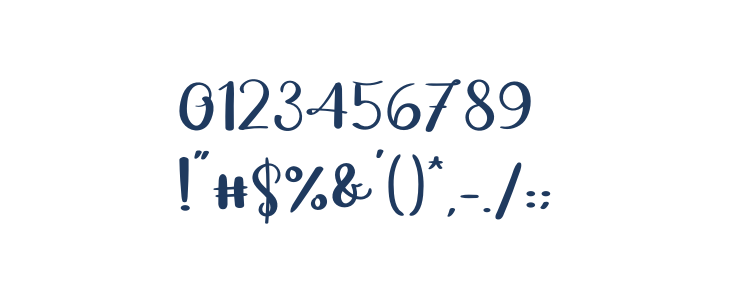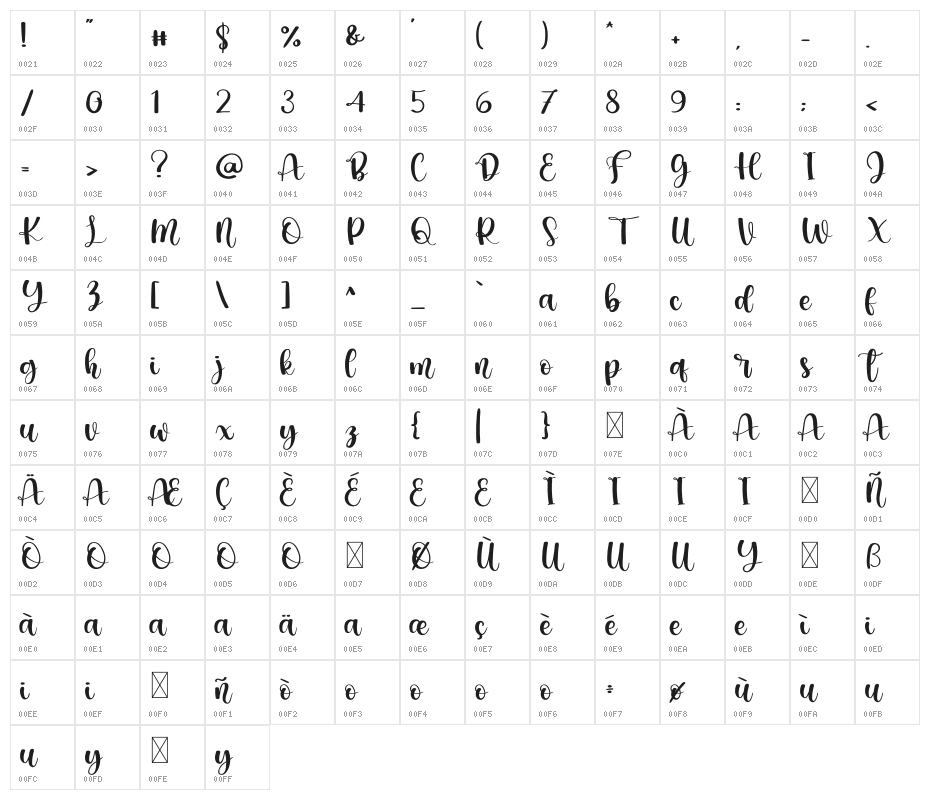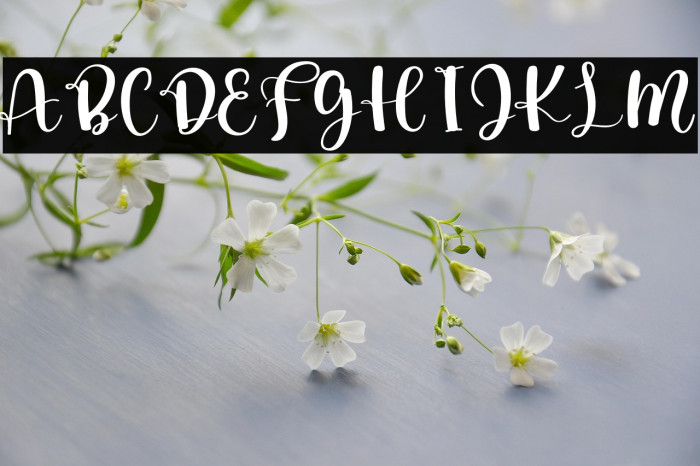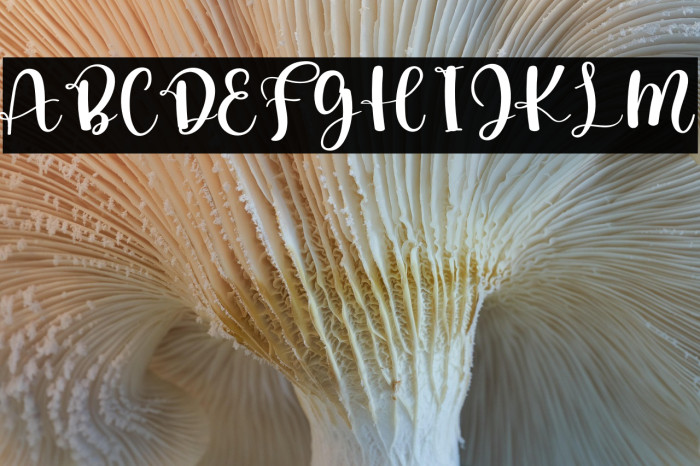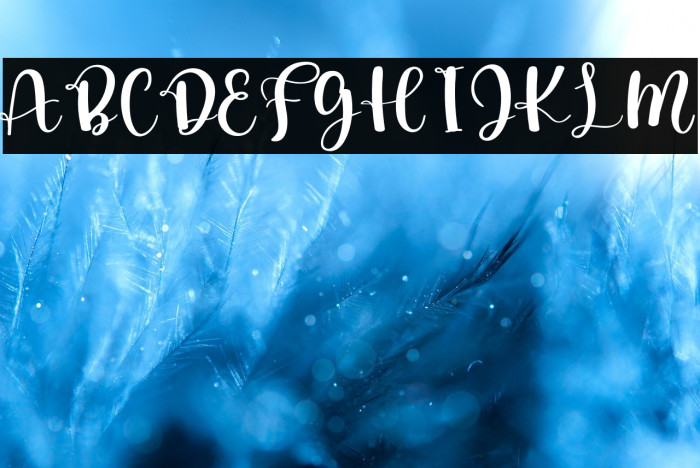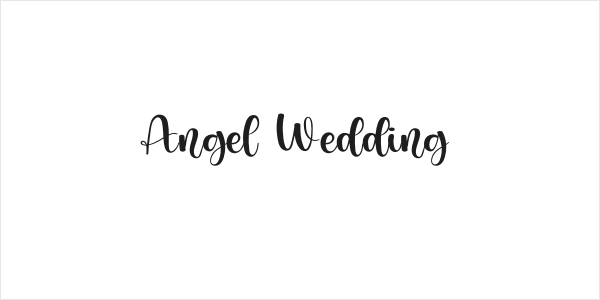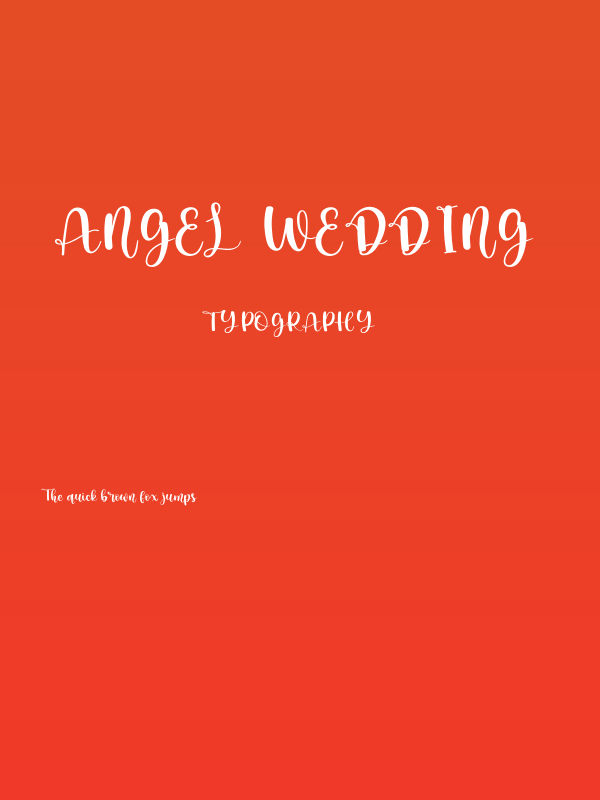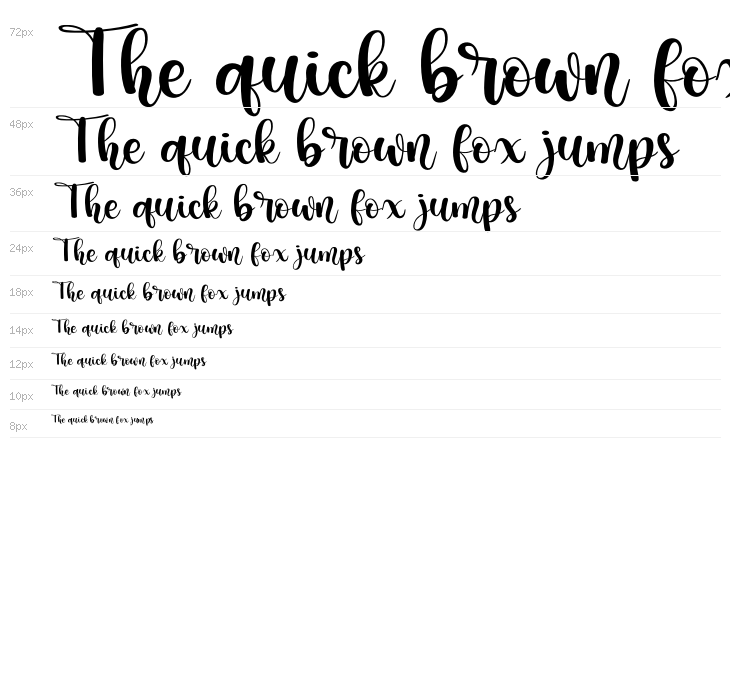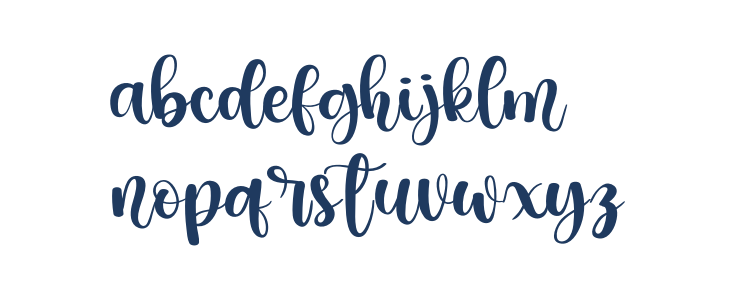
Angel Wedding Font
Angel Wedding Description
This font features a charming and elegant script style, characterized by its flowing, cursive letterforms that convey a sense of romance and sophistication. The uppercase letters are adorned with graceful loops and swashes, adding a decorative flair. The lowercase letters maintain a consistent, smooth flow, enhancing readability while retaining an artistic touch. The numerals are stylishly crafted, complementing the overall aesthetic. Special characters are thoughtfully designed to match the font's elegant theme, making it suitable for formal and celebratory occasions.
| Overall Style | Romantic, Elegant |
| Use Case | Invitations, Branding, Event Signage |
| Proposed Projects | Ideal for wedding invitations, greeting cards, branding, and elegant event signage. |